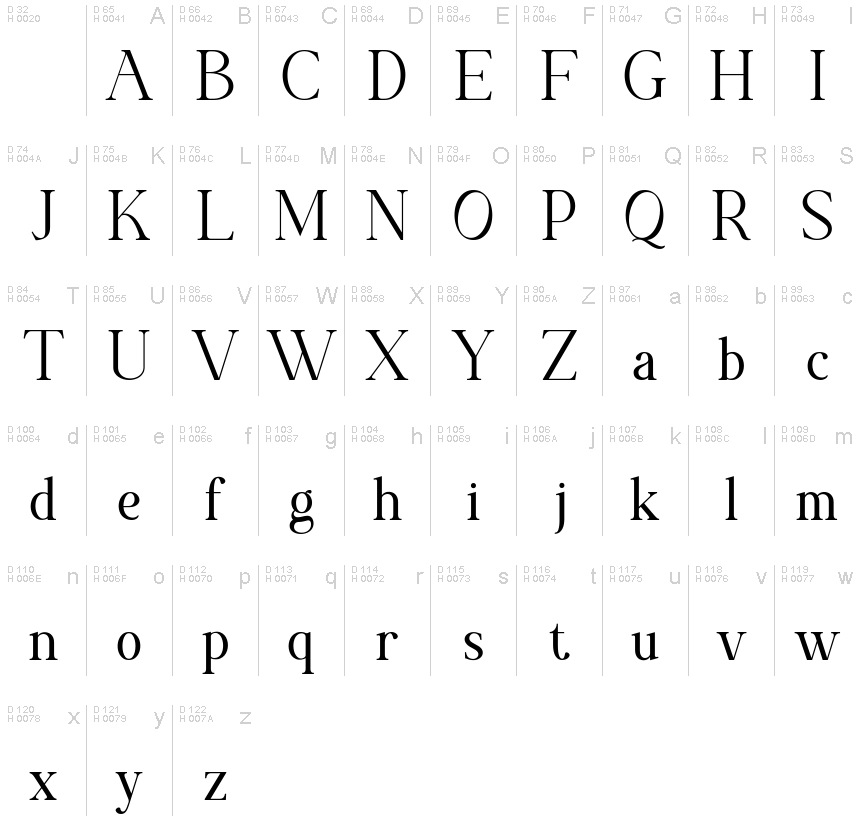
Rossena Regular
Rossena, a captivating serif font crafted by Achmad Yani, radiates elegance and sophistication. Its refined, yet striking letterforms evoke a timeless aesthetic, seamlessly blending traditional influences with modern sensibilities. The font's graceful curves and meticulously balanced proportions lend an air of sophistication, while its subtle contrast and clean lines convey a sense of refined simplicity.
Rossena's versatility makes it a compelling choice for a diverse range of design applications. Its classic appeal and legibility make it well-suited for editorial and publishing projects, from book covers to magazine layouts. The font's elegant charm also lends itself to branding and identity design, where its distinctive character can elevate the visual identity of premium products or services.